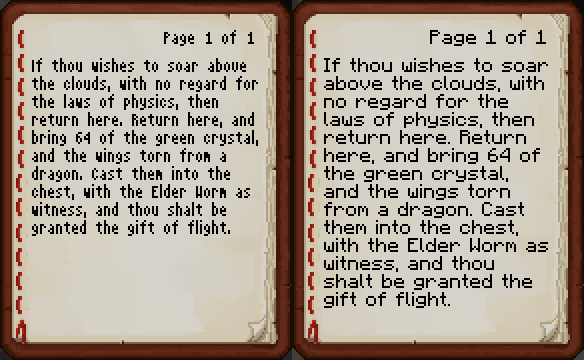
Packrat - Font
Pack as much text in there as you can!
Packrat is a compact font designed with the goal of packing as much text into any single space as possible. I haven't done any exact math on it, but you should be able to fit around 20-25% more text in a field. (Practically) every character is at most 3 pixels wide. Because of this, some characters like capital H/M/N/W may be more difficult to distinguish. Furthermore, characters like æ and œ are impossible to create with the 3-wide limitation, and as such have been made as thin as possible. This pack does not modify any Cyrillic characters, uncommon symbols, Greek symbols, or anything not included in ascii.png.